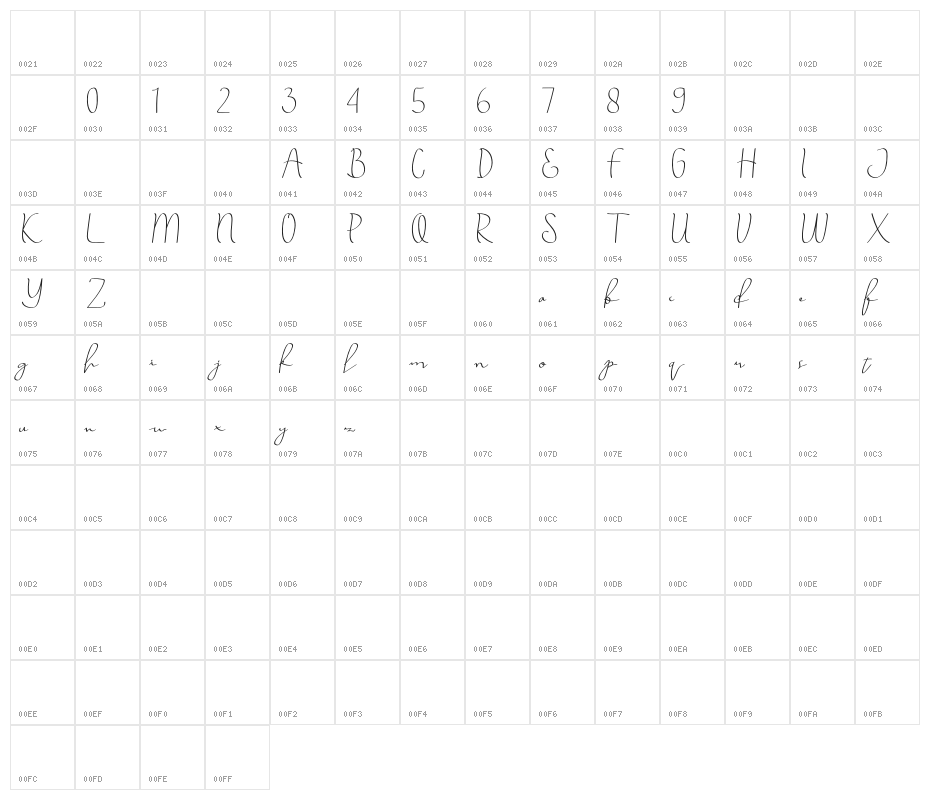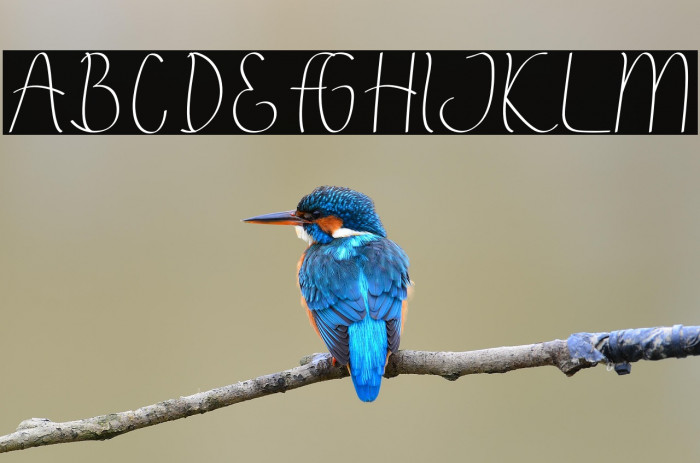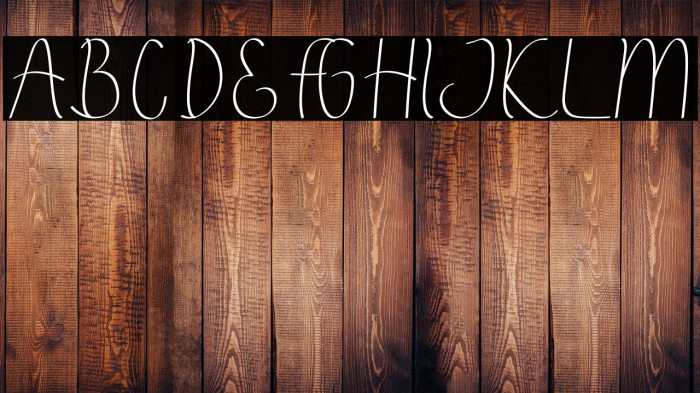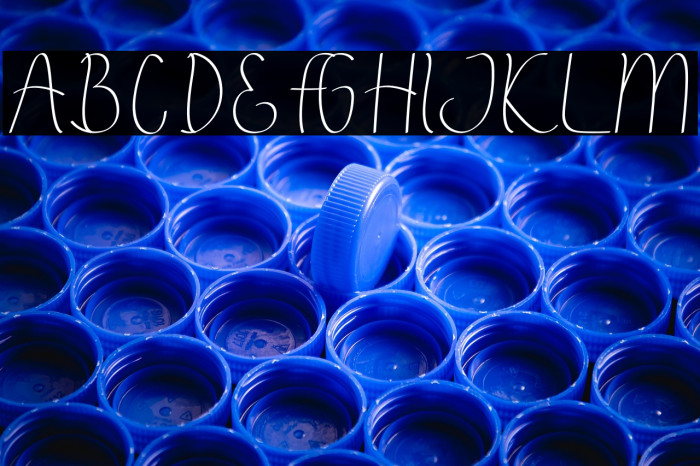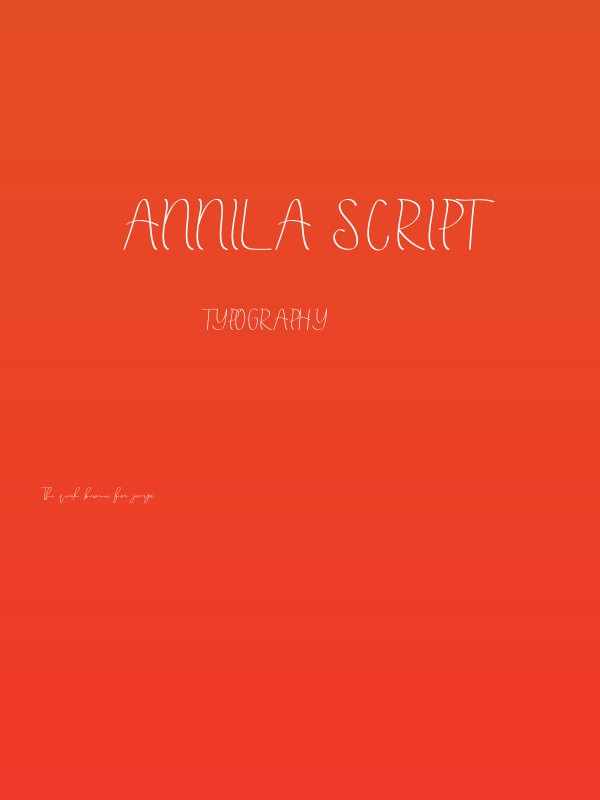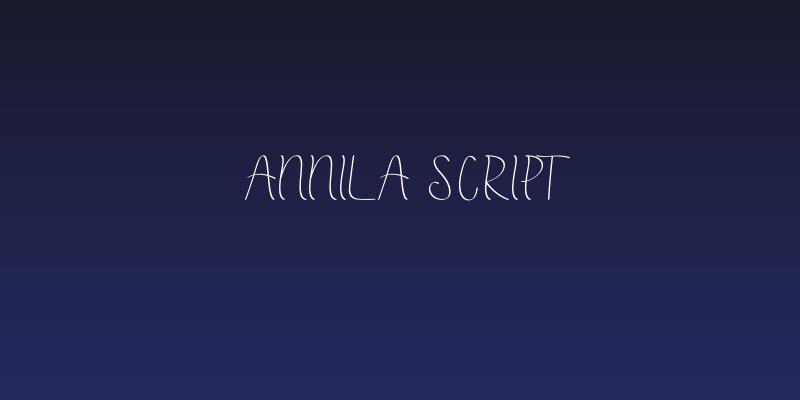
Annila Script Font
Annila Script Description
This elegant script font features a flowing, handwritten style with a modern twist. The uppercase letters are tall and slender, with a slight slant, giving them a sophisticated appearance. The lowercase letters are more fluid and connected, resembling natural handwriting with graceful loops and curves. The numerals are consistent with the overall style, maintaining a balance between readability and aesthetic appeal. The font's delicate strokes and subtle variations in line thickness add a touch of refinement, making it suitable for a variety of design projects.
| Use Case | Logos, Invitations, Branding |
| Proposed Projects | Ideal for wedding invitations, greeting cards, branding, and elegant logo designs. |